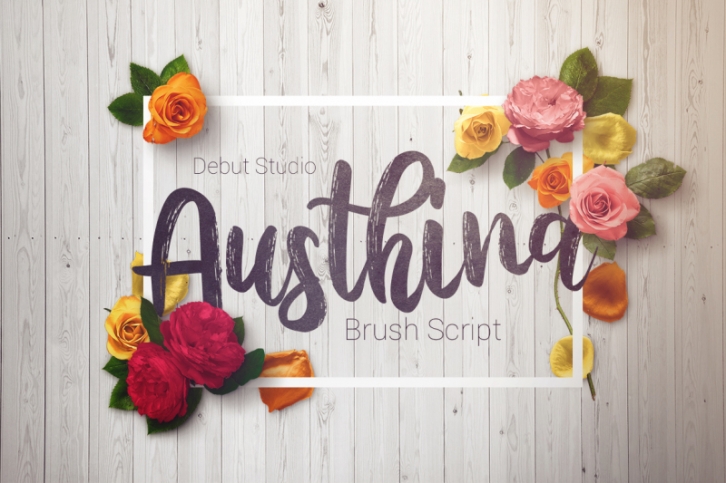
**Debut Studio** presents the latest font **Austhina Brush Calligraphy Font** This font is perfect for design purposes such as title title, magazine, newspaper, website, to design quotations, posters, business cards, and others.
It has 2 style fonts, allowing you to choose to keep the text and look handmade.